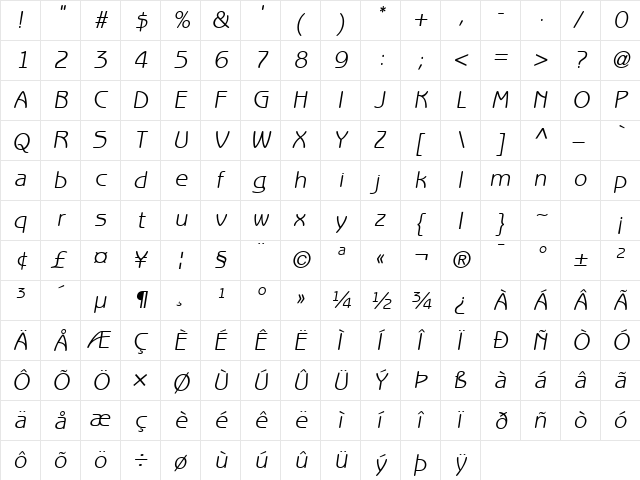
Express Deco GothicLight SSi Normal
Design Context for Express Deco GothicLight SSi Typeface
Express Deco GothicLight SSi has the quiet confidence of well-executed sans-serif typography: versatile, unobtrusive, and dependable at any size. Its slender proportions lend an understated elegance to any composition.
Ideal for fashion and beauty branding, minimal editorial layouts, and premium digital experiences.
Font Pairing: Pair Express Deco GothicLight SSi with a medium or bold serif for headlines — the weight contrast creates an elegant, high-end feel.
Pro Tip: Avoid using Express Deco GothicLight SSi at very small sizes where its slender strokes can disappear. It performs best at medium to large sizes.